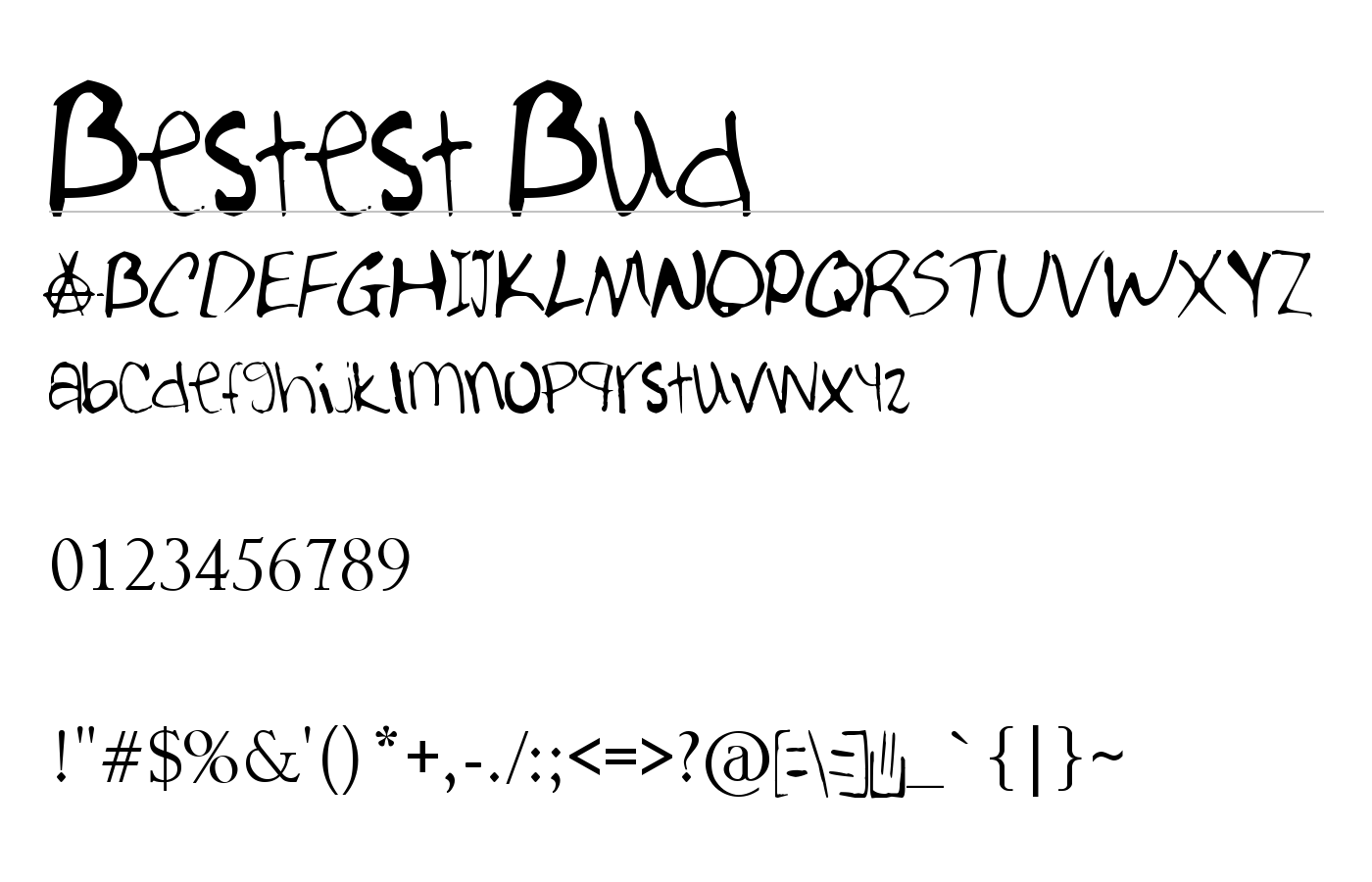
Bestest Buddies =] is a quirky, handwritten sans serif font with a playful and informal character. Its uneven strokes and whimsical letter shapes create a friendly, approachable vibe that works well for casual designs, kids' projects, and creative branding. This font shines in headlines, invitations, and any setting where a fun, human touch is desired.
Bestest Buddies =] Font